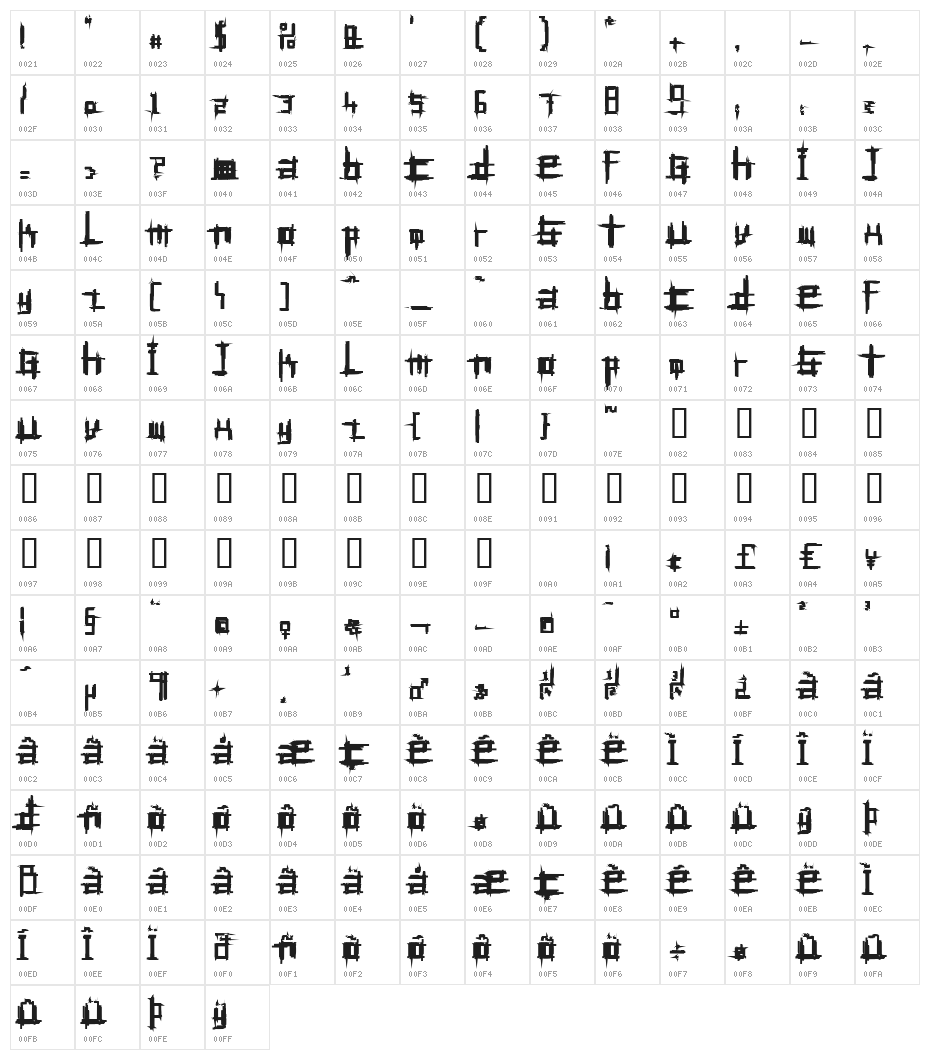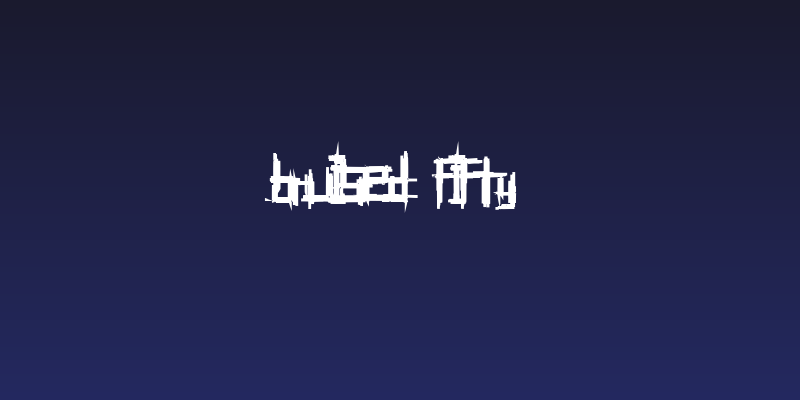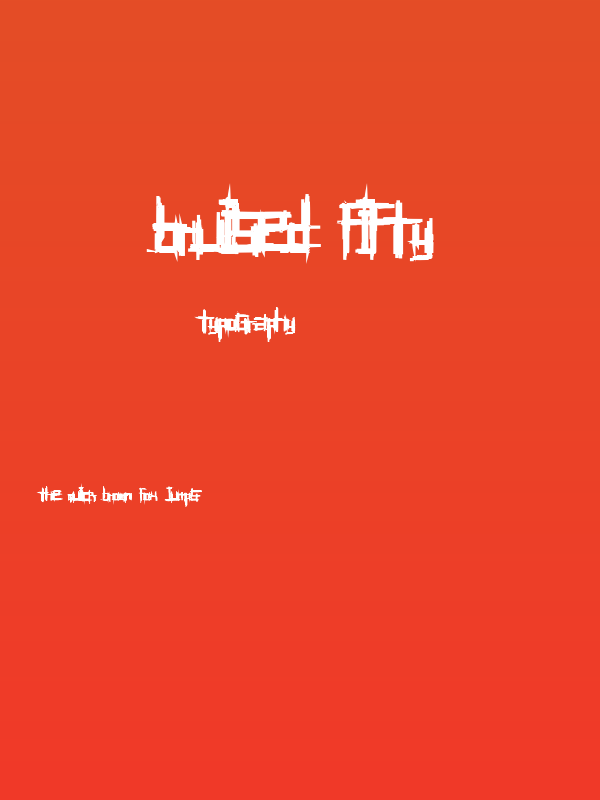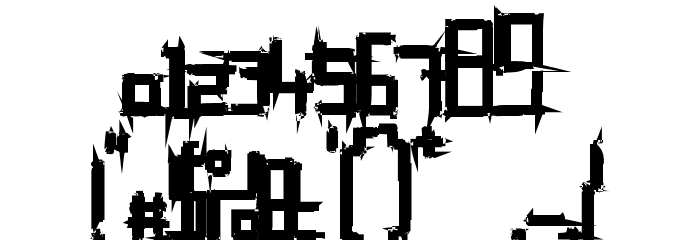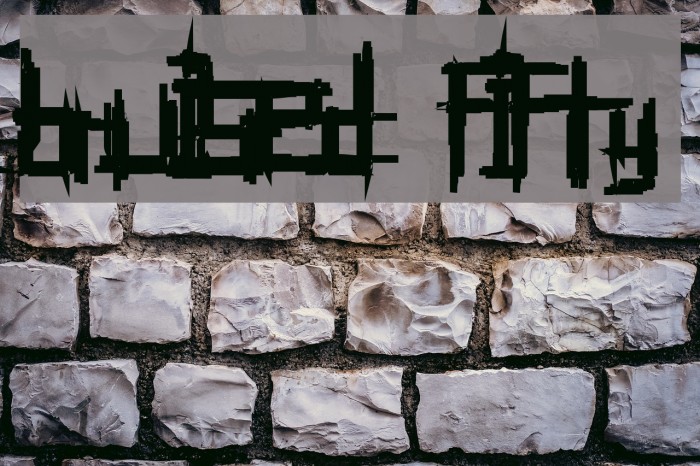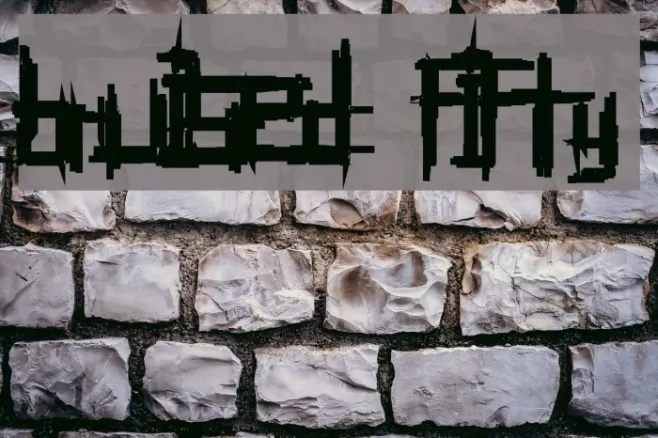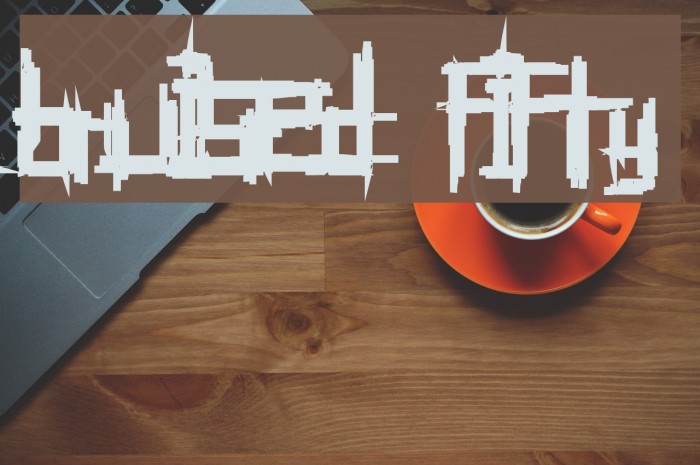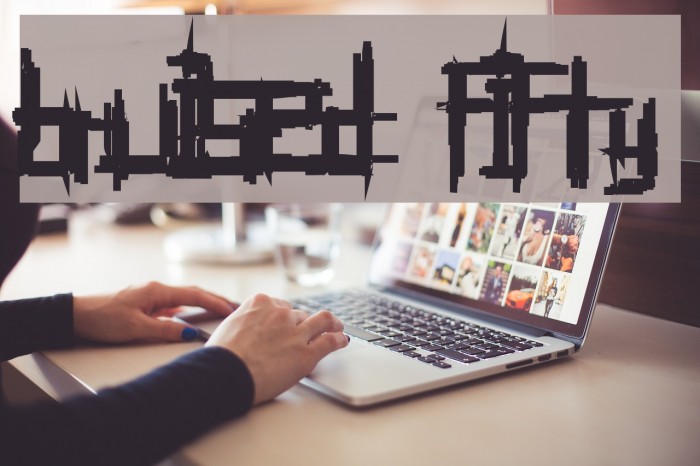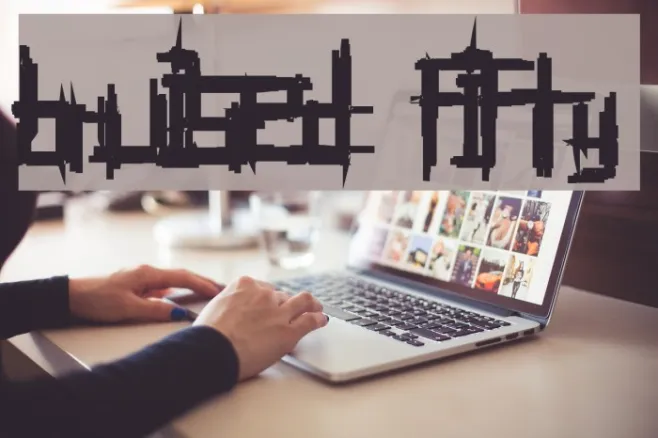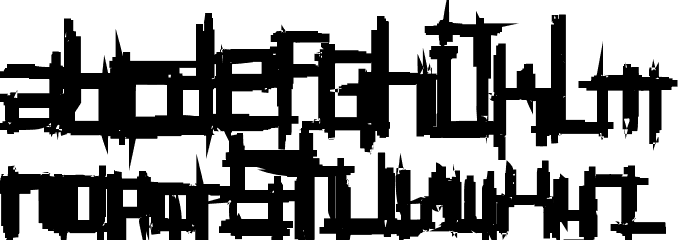
Bruised Fifty Font
Bruised Fifty Description
This font features a highly distressed and jagged appearance, reminiscent of shattered glass or rough textures. The characters are bold and heavily stylized, with sharp edges and irregular forms that create a chaotic yet intriguing visual impact. The uppercase and lowercase letters maintain this rugged style, making it stand out in any design. Numbers and special characters follow the same aesthetic, ensuring consistency across all elements. This font is ideal for projects that require a gritty, edgy look, such as horror-themed graphics, rebellious branding, or music album covers.
| Use Case | Logos, Headlines |
| Proposed Projects | Ideal for horror-themed graphics, rebellious branding, or music album covers. |